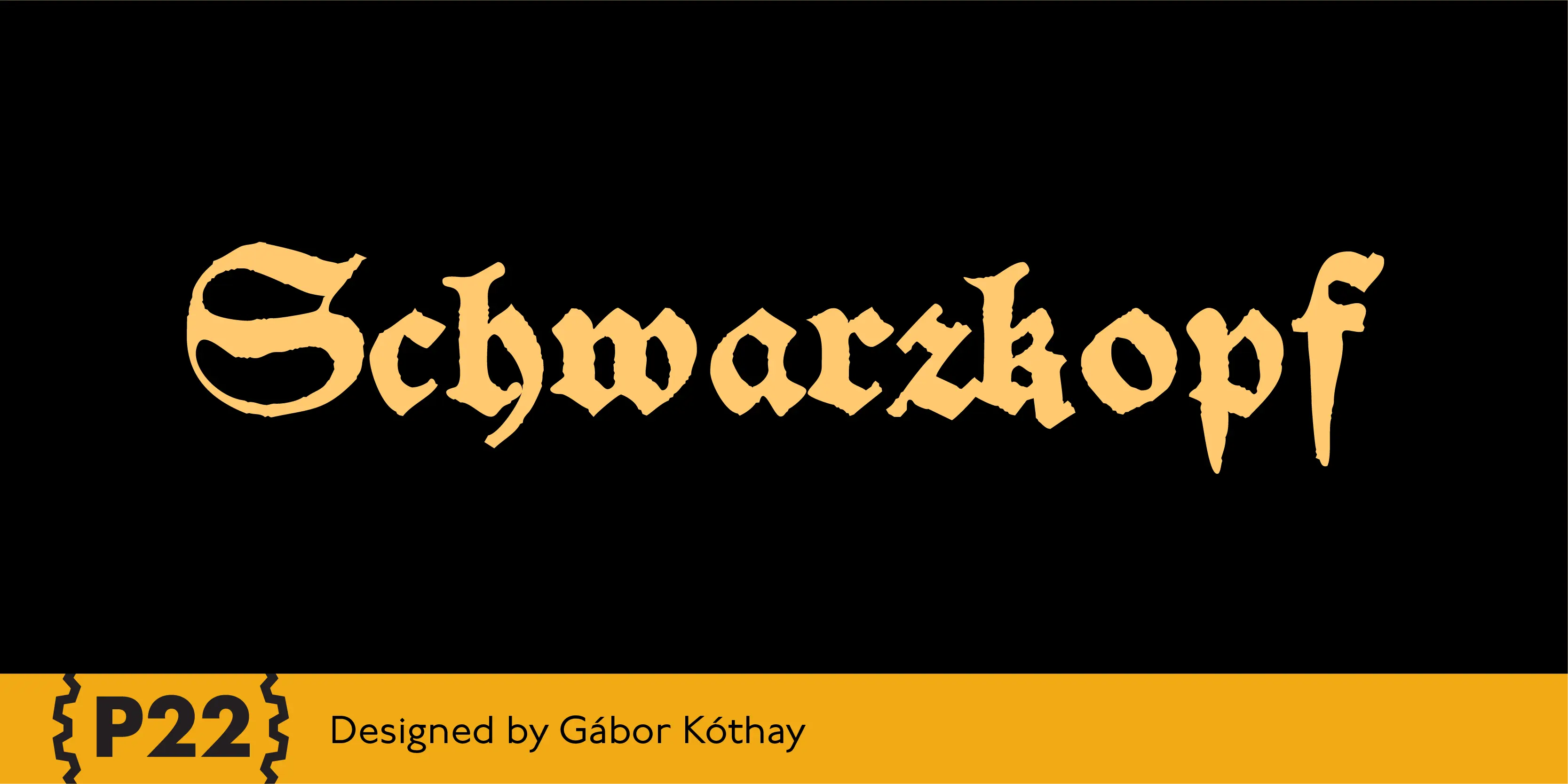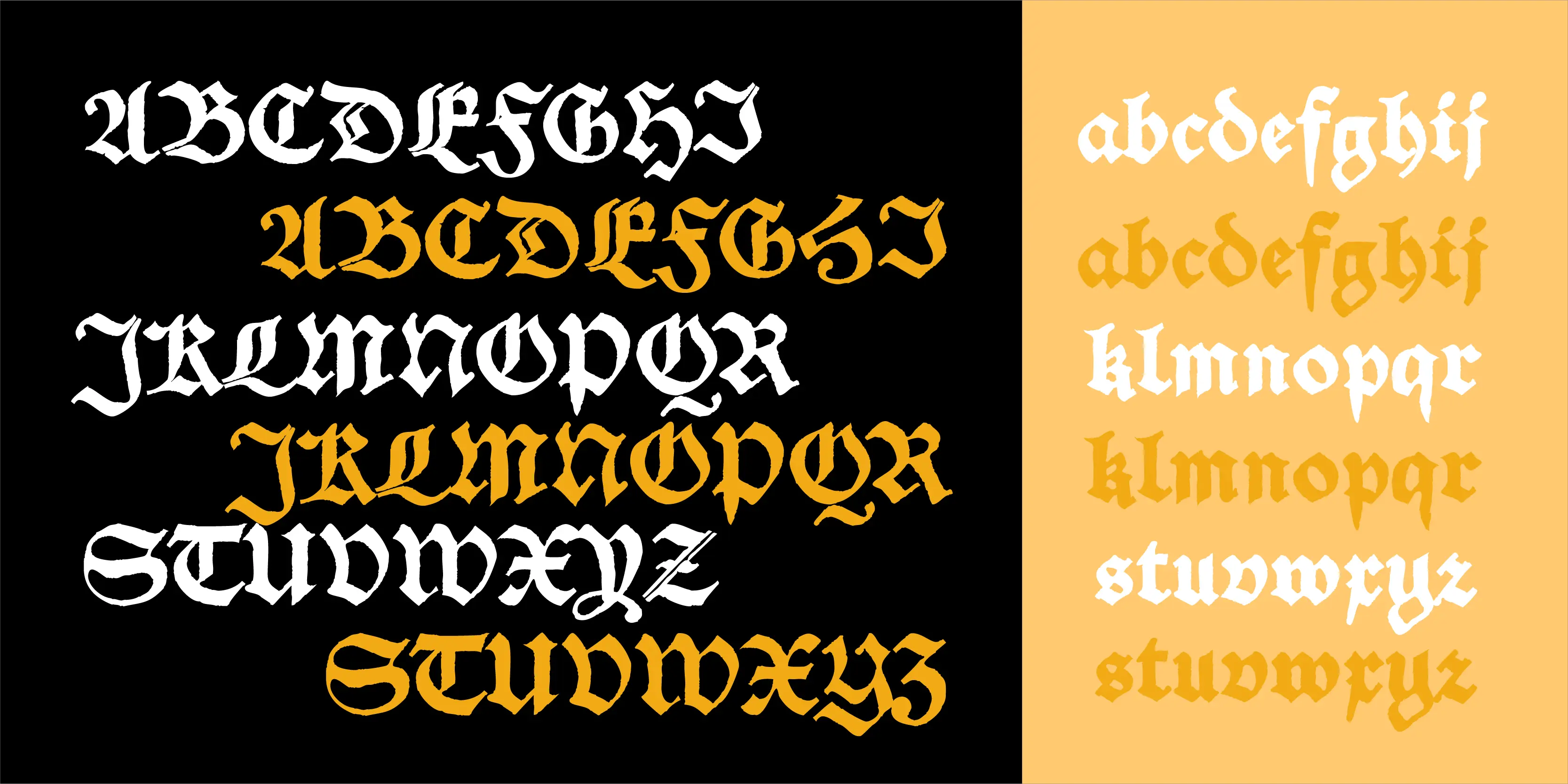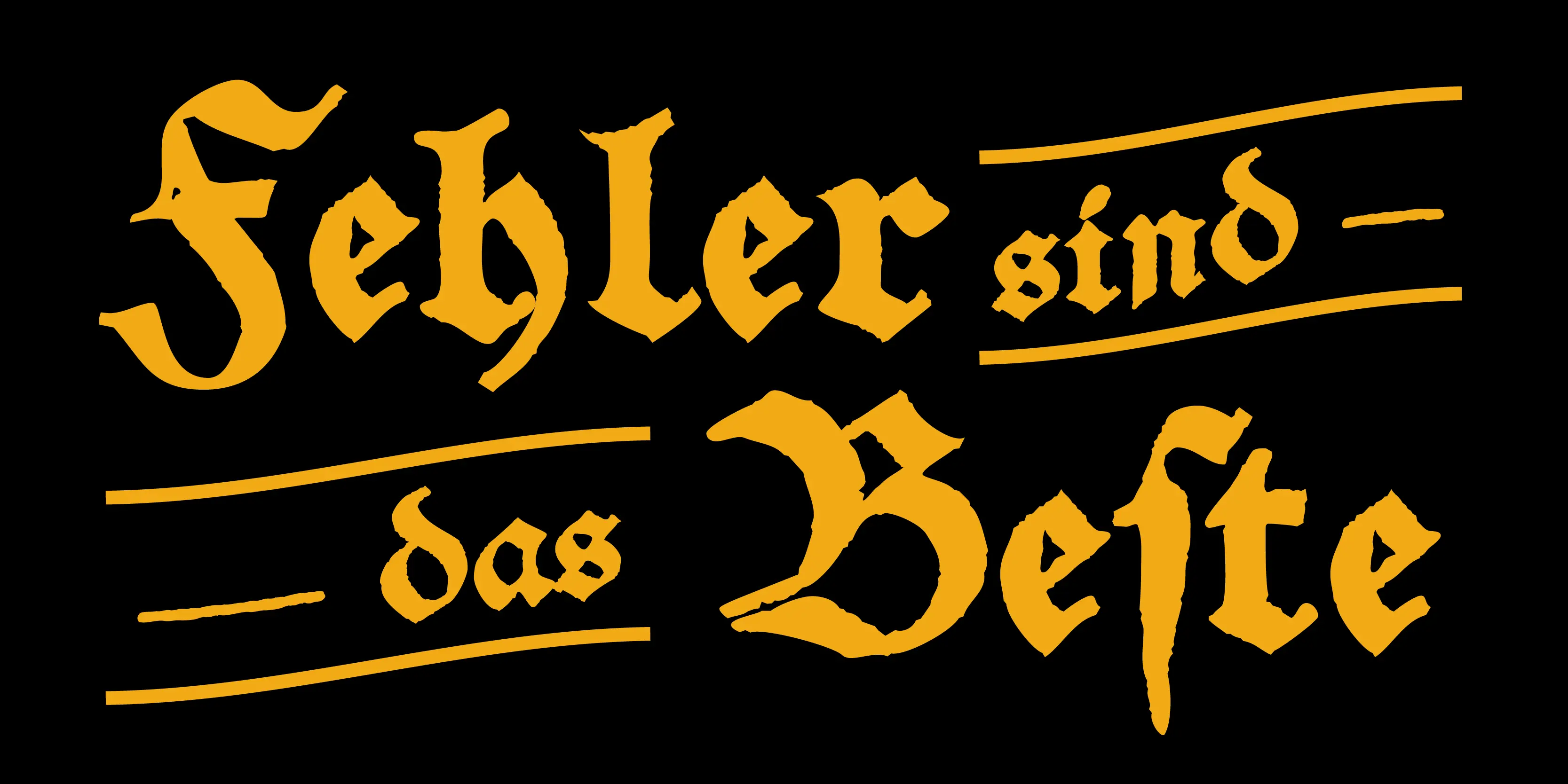
SchwarzKopf Font Family
• SchwarzKopf New
• SchwarzKopf Old
SchwarzKopf
SchwarzKopf is a historic European “Schwabacher” blackletter which features a distressed edge for creating authentic “antique” documents. OLD features the long “s” and other archaic forms. Both OLD and NEW variations feature many additional ligatures such as tz, sch, ff, and ck.